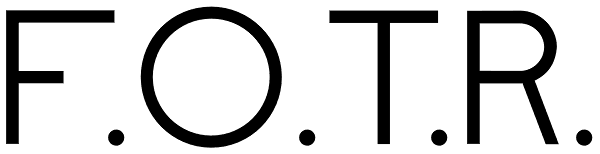
F. O. T. R.
F. O. T. R. is experimental sans serif display font. Space travelling is near so I decided to bring you a brand new typeface based on insight into the future. Clean shapes, a lot of atypical alternates and the futuristic appearance. F. O. T. R...
F.O.T.R.
F.O.T.R. Bold
F.O.T.R. Black